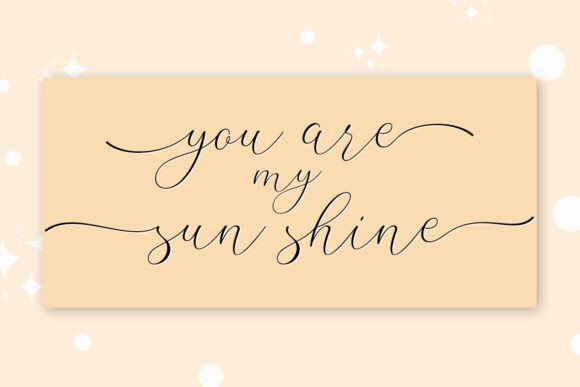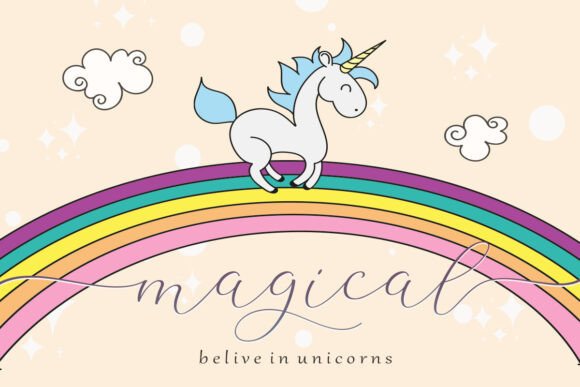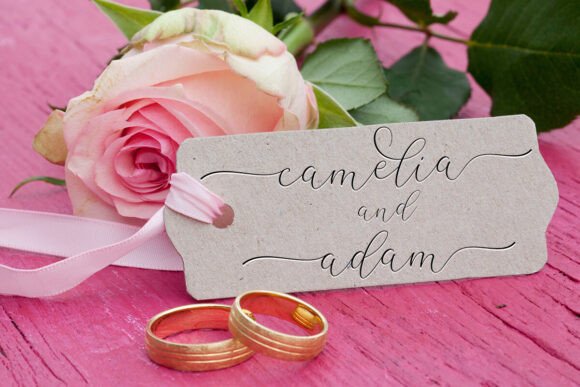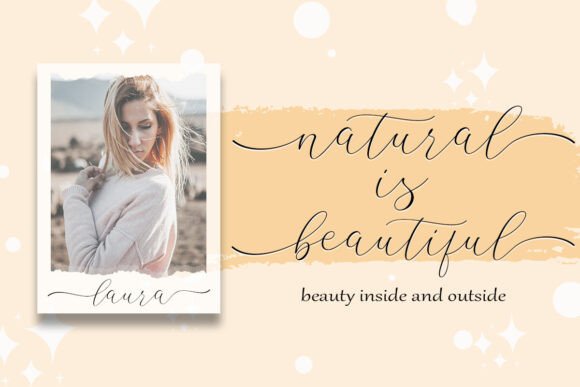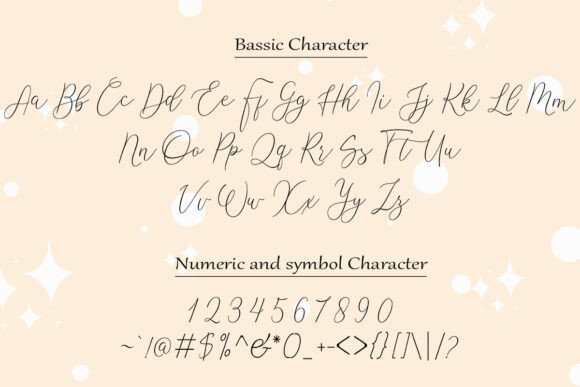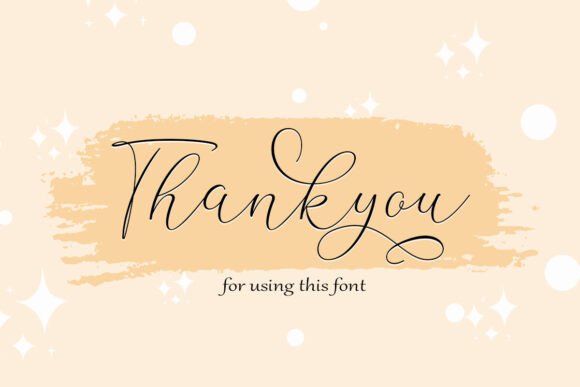
Introducing Camelia Font: Elevate Your Designs with Elegance and Sophistication
Step into the world of style and elegance with the Camelia font, an exquisitely handcrafted font that encapsulates grace and sophistication. This stunning font is perfect for designers and crafters looking to add a touch of luxury to their projects. Whether you’re creating wedding invites, thank you notes, heartfelt quotes, or festive greetings, Camelia font is sure to make your designs shine.
A Font that Exudes Classic Charm
Camelia font is a masterpiece of typography, with its delicate and intricate strokes that evoke a sense of nostalgia and romance. Its classic charm is perfect for designs that require a touch of sophistication and elegance. From logos to business cards, Camelia font adds a personal handwritten touch that sets your designs apart from the rest.
One of the best things about Camelia font is its versatility. It can be used for a wide range of design projects, including:
- Thank you notes and greeting cards
- Heartfelt quotes and posters
- Festive greetings and holiday cards
PUA Encoded for Seamless Design Experience
What’s more, Camelia font comes PUA encoded, making all glyphs and alternates readily accessible for a seamless design experience. This means you can easily access and use the font’s various features, such as swashes, ligatures, and alternates, to create unique and stunning designs.
Why Choose Camelia Font?
So, why choose Camelia font for your design projects? Here are just a few reasons:
- Elegance and sophistication: Camelia font exudes classic charm and sophistication, making it perfect for designs that require a touch of luxury.
- Versatility: Camelia font can be used for a wide range of design projects, from wedding invites to logos and business cards.
- Easy to use: Camelia font comes PUA encoded, making it easy to access and use its various features.
- Unique and handmade: Camelia font is a handcrafted font that adds a personal touch to your designs.
Tips for Using Camelia Font
Here are a few tips for using Camelia font in your design projects:
- Pair it with other fonts: Camelia font pairs well with other serif and sans-serif fonts. Experiment with different font combinations to find the perfect look for your design.
- Use it for headings and titles: Camelia font is perfect for headings and titles, where its elegant and sophisticated style can shine.
- Add a personal touch: Use Camelia font to add a personal touch to your designs, such as in wedding invitations or thank you notes.
In conclusion, Camelia font is a stunning and elegant font that is perfect for designers and crafters looking to add a touch of luxury to their projects. Its classic charm, versatility, and ease of use make it a great choice for a wide range of design projects. Whether you’re creating wedding invites, logos, or business cards, Camelia font is sure to make your designs shine.